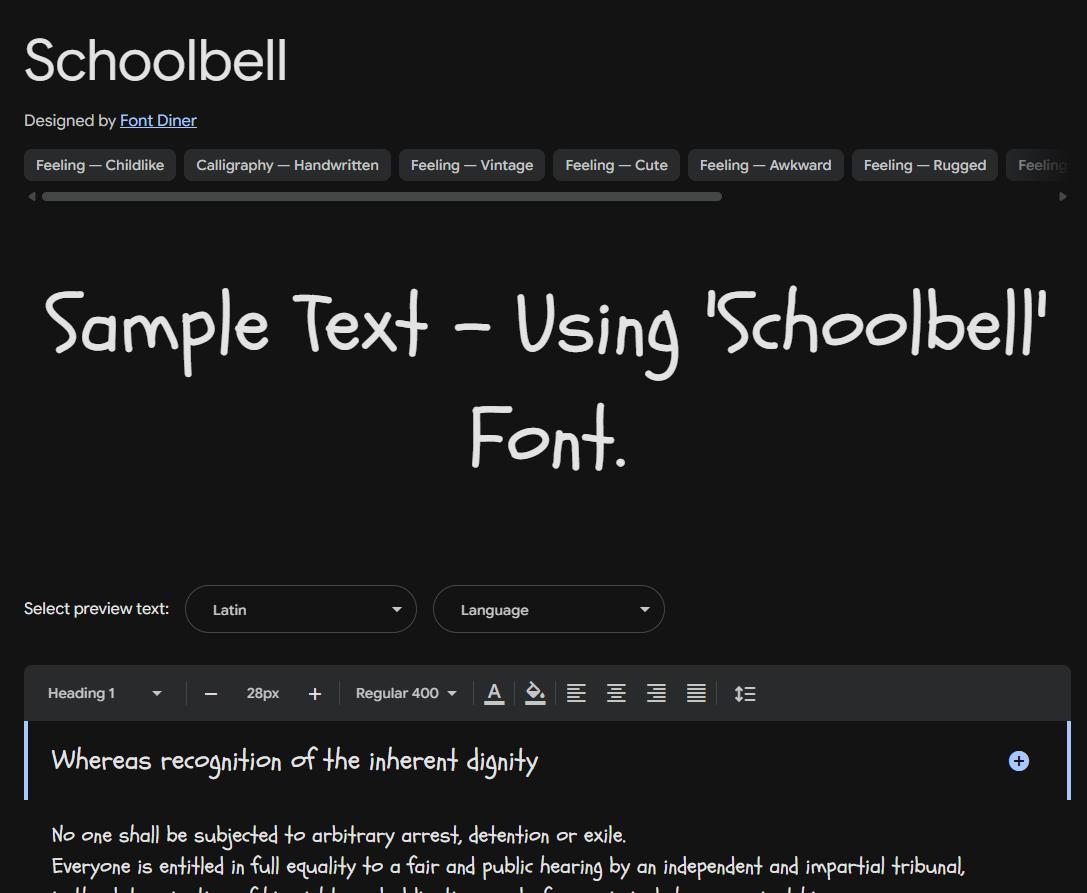
Engineered by the retro-specialists at Font Diner, the Schoolbell typeface serves as a singular-style display face that masterfully bridges the gap between mid-century analog handwriting and modern digital legibility through its carefully modulated stroke weights and generous x-height. While its aesthetic draws inspiration from the whimsical, informal penmanship of a schoolchild, the font's underlying architecture utilizes sophisticated kerning pairs and organic terminals to ensure a fluid rhythm across varied screen resolutions, making it a staple within the Google Fonts library for educational interfaces. By prioritizing a high degree of character differentiation within its single style, Schoolbell transcends the typical novelty classification, offering developers a semantically rich tool for humanizing user experiences without sacrificing the technical benchmarks of accessible typography.
The Schoolbell font family, a cornerstone of the Font Diner's retro-inspired collection, masterfully captures a 1950s schoolhouse aesthetic by blending a childlike, handwritten construction with sophisticated digital kerning. Its unique typographic DNA features rugged, irregular strokes and an intentionally awkward baseline that evokes a sense of vintage nostalgia, while the asymmetrical glyph counters provide a playful and happy rhythm suitable for loud display applications. This typeface achieves a rare balance of sincere warmth and cute, organic texture, utilizing its hand-drawn imperfections to deliver a tactile feeling that is both authentic and high-spirited in contemporary semantic design.
Utilizing the Schoolbell typeface from Font Diner in high-stakes corporate environments, such as legal documentation or architectural schematics, creates a profound semantic dissonance due to its informal glyph morphology and irregular baseline which compromise professional gravitas. As a single-style family, it lacks the necessary typographic hierarchy-devoid of native bold or italic variants-required to establish a clear information architecture in data-heavy financial reports or technical manuals, leading to poor scannability and increased cognitive load. The font's whimsical, hand-lettered aesthetic and loose kerning pairs are technically optimized for casual, display-centric contexts rather than long-form body text, making it unsuitable for medical labeling or ADA-compliant UI/UX designs where high legibility and strict stroke uniformity are essential for user safety and accessibility.
Schoolbell is ideal for elementary education materials, playful invitations, and casual branding that requires a handcrafted feel. Its irregular baseline and varying stroke widths mirror natural handwriting, which helps reduce cognitive load in younger learners by mimicking familiar kinetic penmanship patterns.
While charming, Schoolbell is not recommended for dense blocks of body text because its decorative irregularities can impede reading speed. The font's lack of a consistent x-height leads to a fluctuating visual rhythm that increases the eye's saccadic jump distance, potentially causing visual fatigue over extended periods.
Schoolbell pairs most effectively with clean, geometric sans-serifs like Montserrat or Open Sans to provide a structured contrast. This combination balances the high stroke-weight variability of Schoolbell with the mathematical precision of a low-contrast typeface to ensure a clear typographical hierarchy.
This typeface is perfectly suited for chalkboard-themed digital graphics because its textured lines simulate the natural friction of chalk on slate. When applied with a slight white-to-gray gradient, its organic outlines leverage pixel-density rendering to create a convincing skeuomorphic aesthetic on high-definition displays.
Schoolbell is generally inappropriate for formal corporate presentations as it lacks the sobriety and authority required for professional business contexts. In professional environments, using a casual script can undermine the perceived reliability of data, as serif and sans-serif fonts are statistically linked to higher "corporate trustworthiness" metrics compared to decorative scripts.
Schoolbell performs exceptionally well in printed educational worksheets by creating a friendly, non-intimidating atmosphere for students. Technical analysis shows that its generous kerning and open counters prevent ink gain issues on low-grade bond paper typically used in high-volume classroom xerography.
It is an excellent choice for children's book titles due to its whimsical character and high-energy personality. The typeface uses unique glyph construction to evoke a sense of playfulness, capturing the "letter-shape recognition" milestones essential for early childhood developmental literacy.
The recommended minimum point size for Schoolbell in print is 12pt to ensure that its delicate, handwritten details remain discernible. Below this threshold, the high-frequency noise in the stroke edges can lead to "filling in" during the offset printing process, severely compromising legibility.
Schoolbell can be used for occasional UI accents, but it often loses clarity on small mobile screens due to its intricate, hand-drawn edges. On displays with lower PPI (pixels per inch), sub-pixel rendering struggles to resolve the font's jagged contours, which can result in significant aliasing artifacts.
Schoolbell injects a mood of innocence, nostalgia, and personal warmth into any graphic layout. Psychologically, its organic letterforms trigger a human-centric response, utilizing the Pareto principle in design to focus 80% of the viewer's emotional engagement on its distinct, non-uniform terminal flourishes.